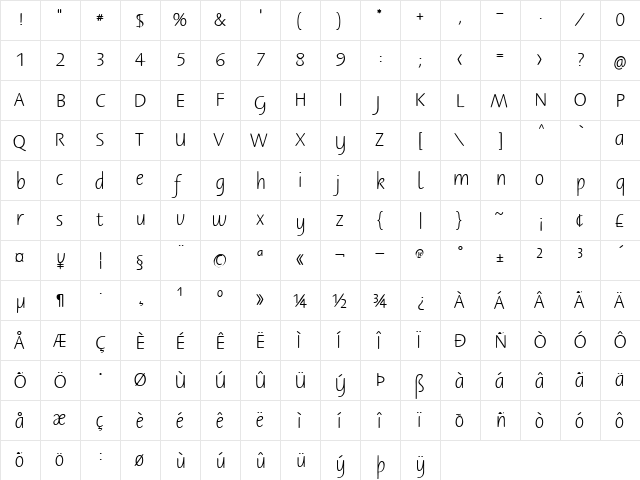
Berner Basisschrift 1 Regular
| Foundry | Peter Wiegel |
| Designer | Peter Wiegel |
Design Context for Berner Basisschrift 1 Typeface
Berner Basisschrift 1 offers clean, dependable letterforms without strong stylistic allegiance, making it a practical choice for designers who need flexibility.
Pro Tip: Pair Berner Basisschrift 1 with a font of contrasting weight or personality to build a more expressive typographic hierarchy.